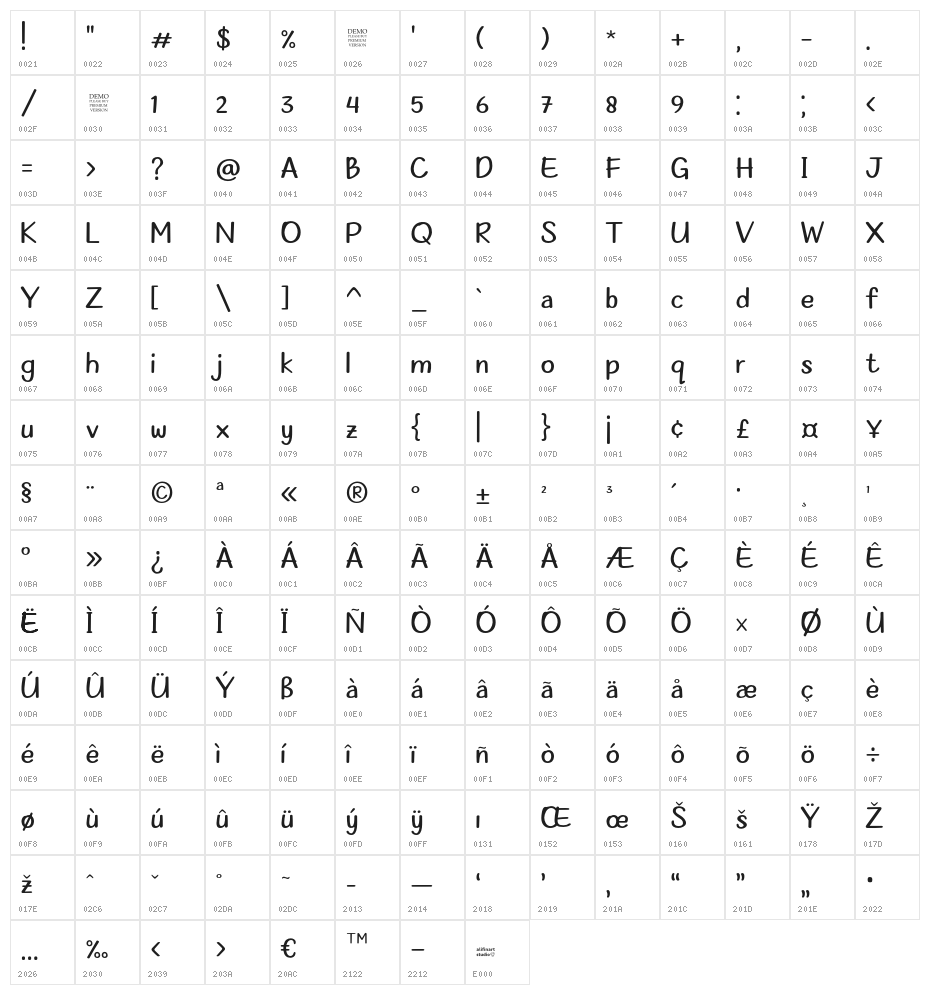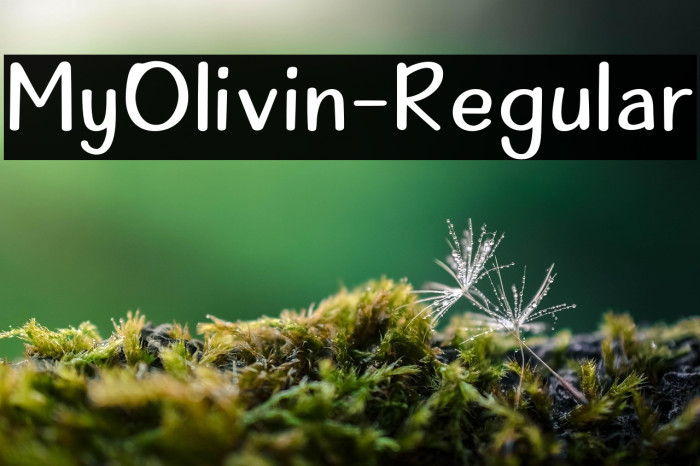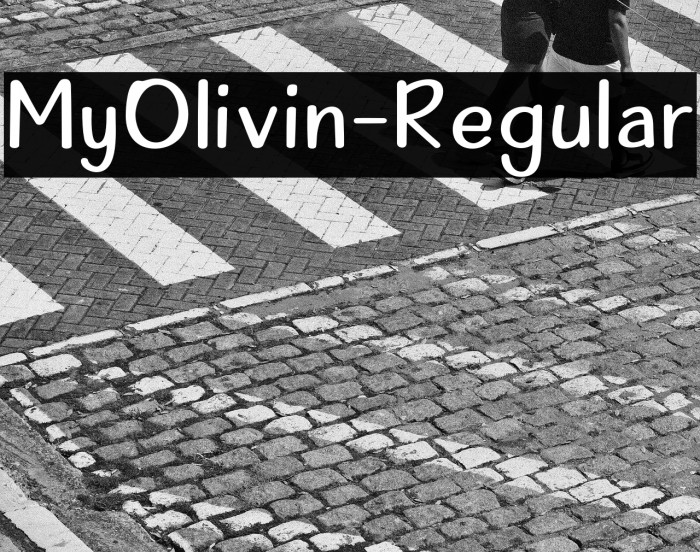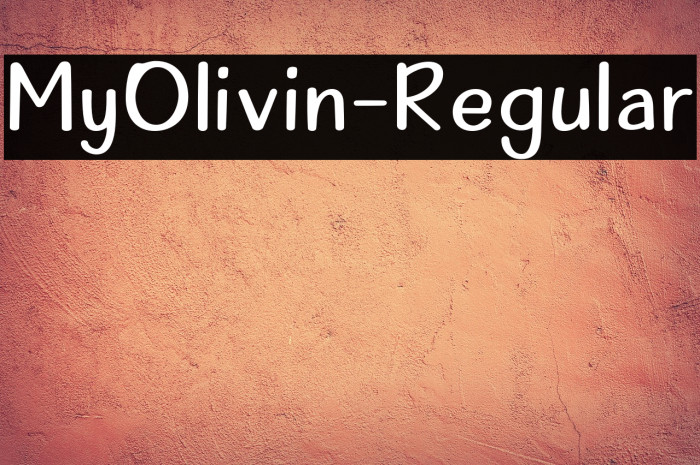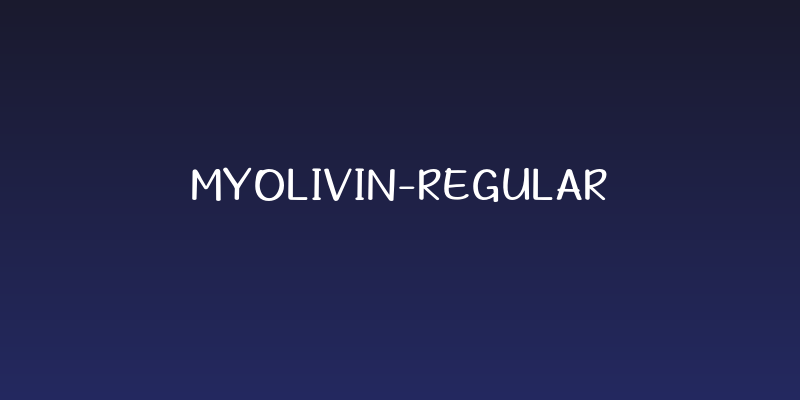
MyOlivin-Regular Font
MyOlivin-Regular Description
This font features a playful and casual handwritten style, characterized by its rounded and smooth letterforms. The uppercase and lowercase letters maintain a consistent flow, with slightly varying stroke widths that add a touch of whimsy. The numerals are clear and easy to read, matching the overall friendly aesthetic. Special characters are well-integrated, maintaining the font's cohesive look. The font's informal style makes it suitable for projects that require a personal or approachable feel, such as invitations, greeting cards, or children's book titles.
| Proposed Projects | Ideal for invitations, greeting cards, children's books, and casual branding. |